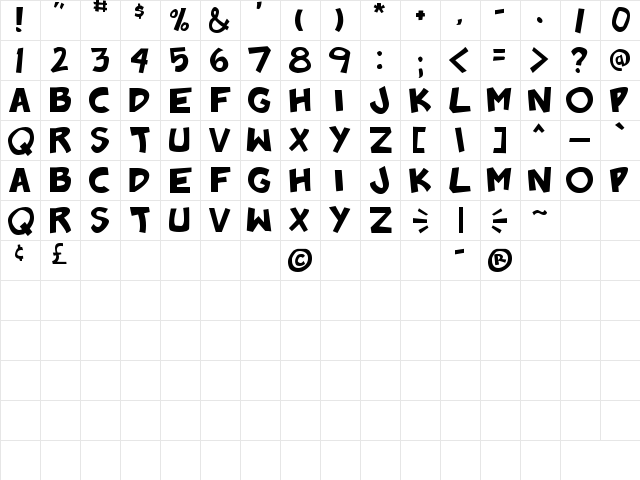
Badonk-a-donk Regular
Design Context for Badonk-a-donk Typeface
Badonk-a-donk is a composed and adaptable typeface that performs quietly and consistently across a wide range of design contexts.
Pro Tip: Use Badonk-a-donk in both headline and body roles to test its range before committing to a single application.